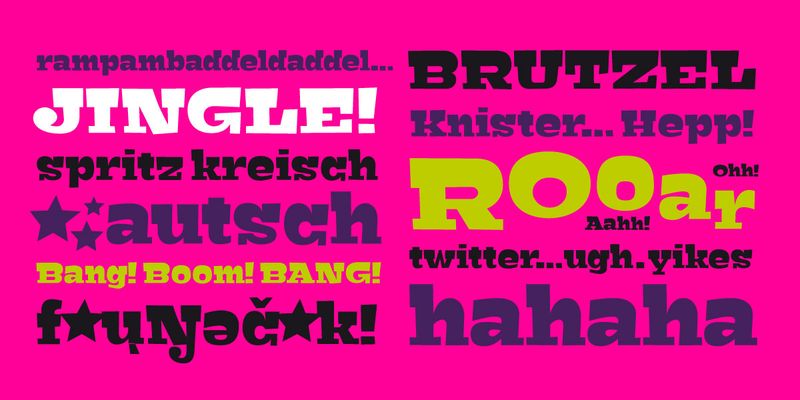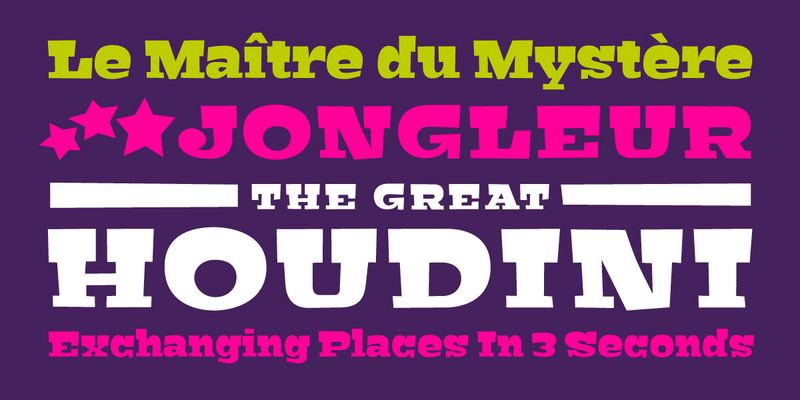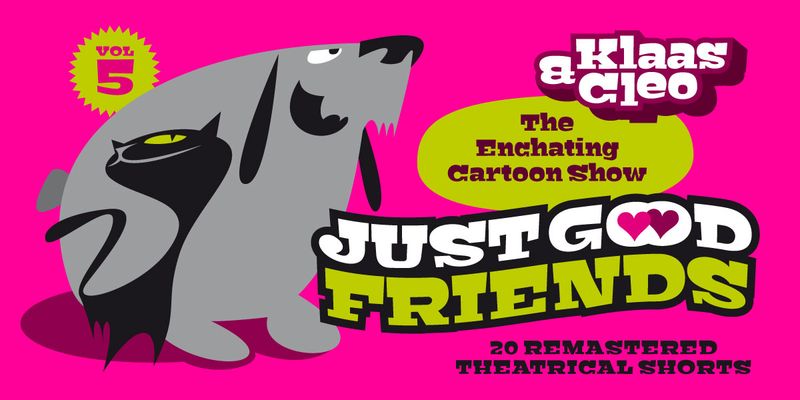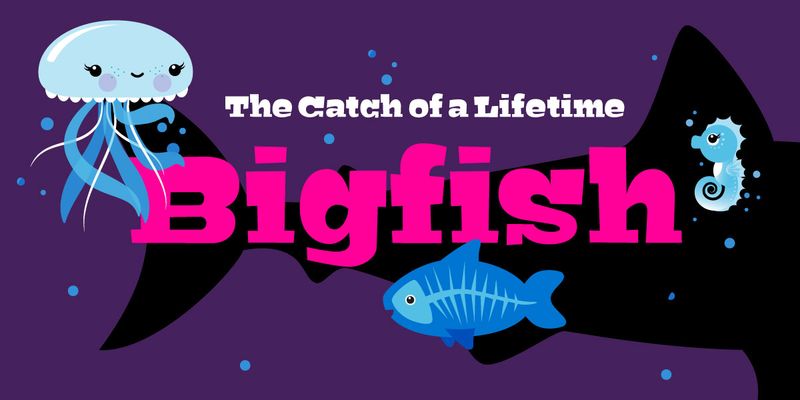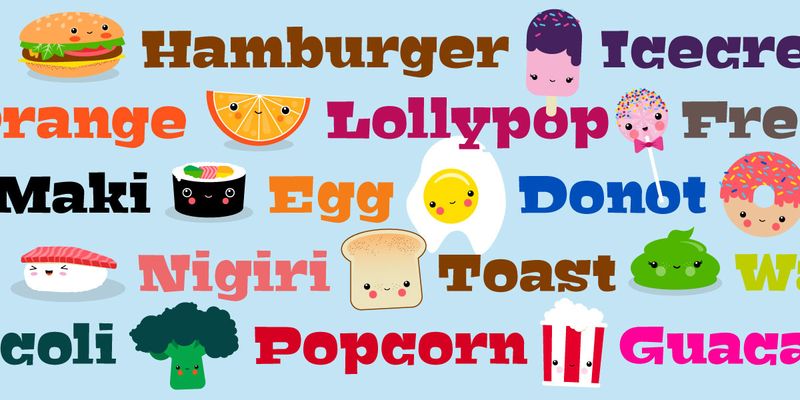
Bigfish (created in 2008 by Felix Braden) is a comic-like slabserif font with top-heavy proportions and looks a bit overinflated. The typeface is reminiscent of the design of old circus posters, but its computer-based curve style also gives it a very modern touch. The creation of the typeface is based on the idea of designing a handmade looking typeface, exclusively on the screen, without the use of paper and pencil.